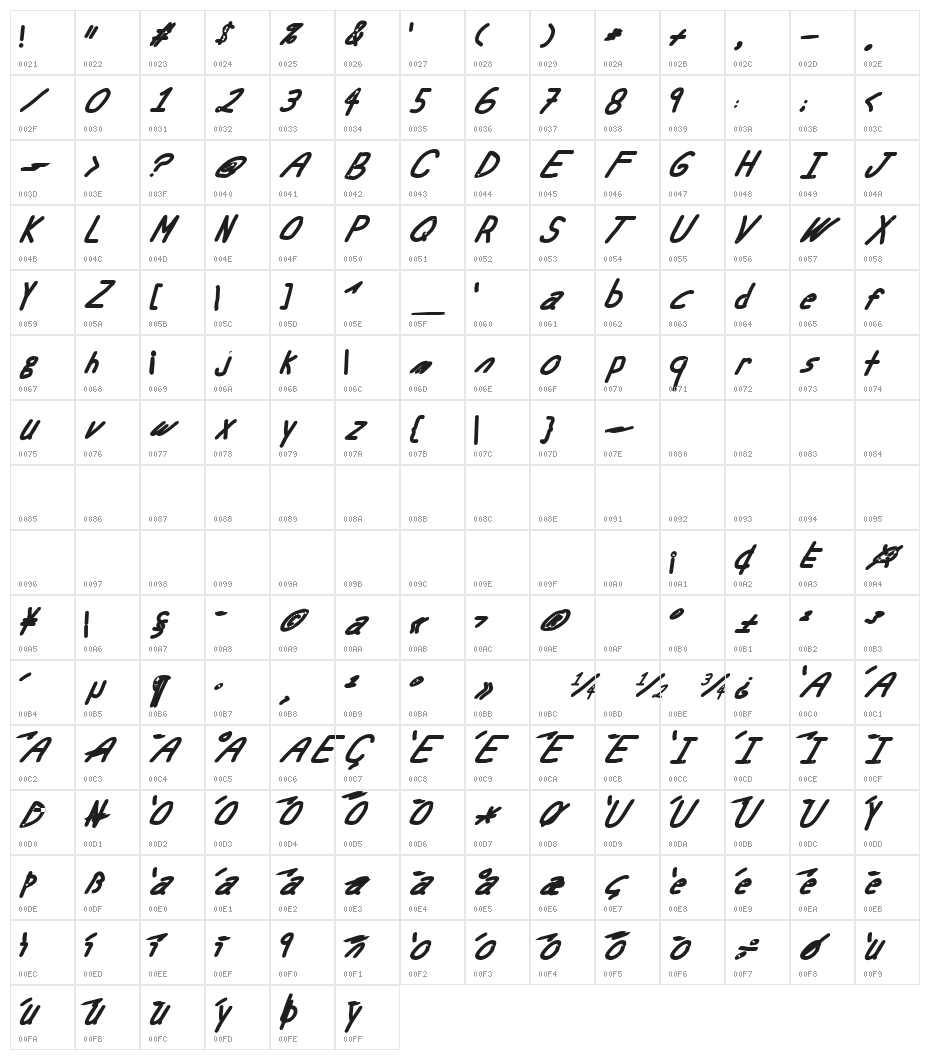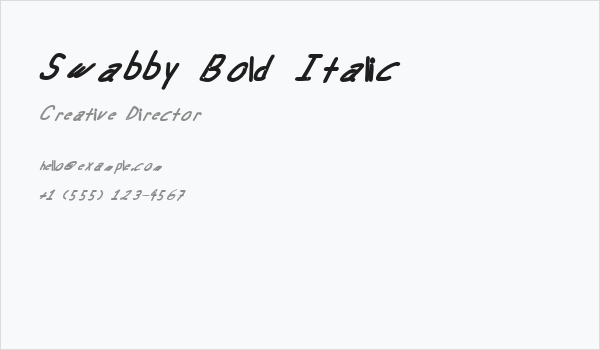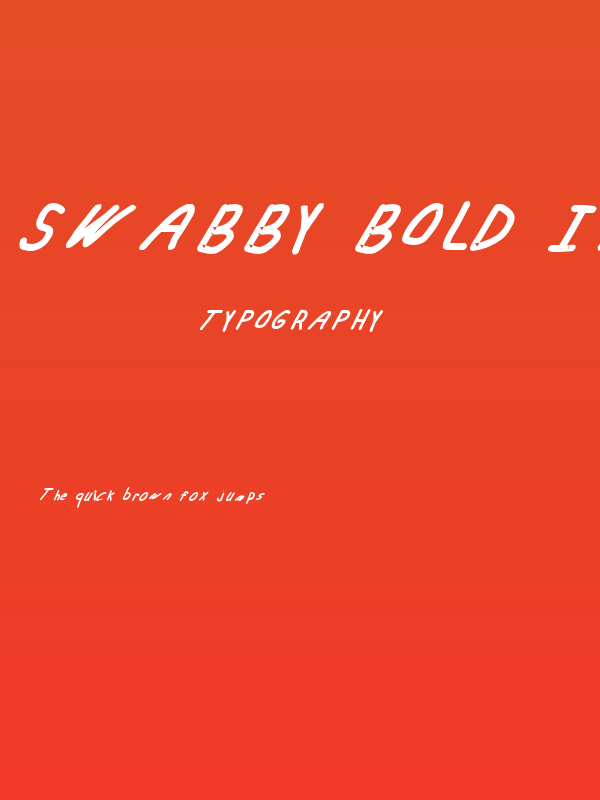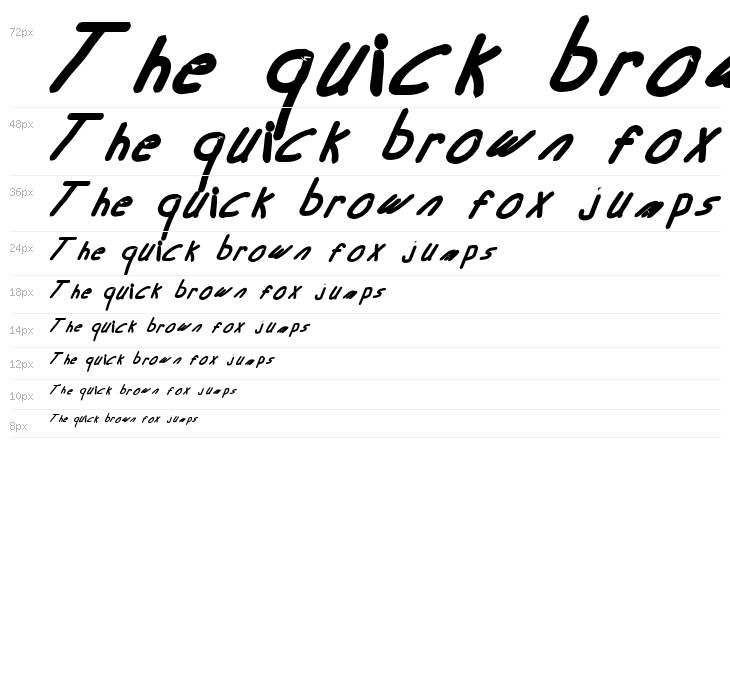
Swabby Bold Italic Font
Swabby Bold Italic Description
This font exhibits a playful and dynamic handwritten style, characterized by its bold and italicized strokes. The letters are slightly slanted, adding a sense of motion and energy. The uppercase and lowercase characters maintain a consistent flow, with rounded edges and a casual, informal appearance. The numbers and special characters follow the same stylistic cues, ensuring a cohesive look across all elements. This font's boldness and slant make it stand out, while its handwritten nature gives it a personal touch.
| Proposed Projects | Ideal for creative projects such as greeting cards, invitations, posters, and branding materials that require a personal and informal touch. |